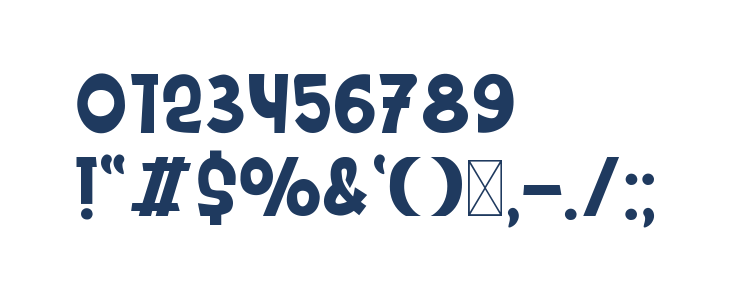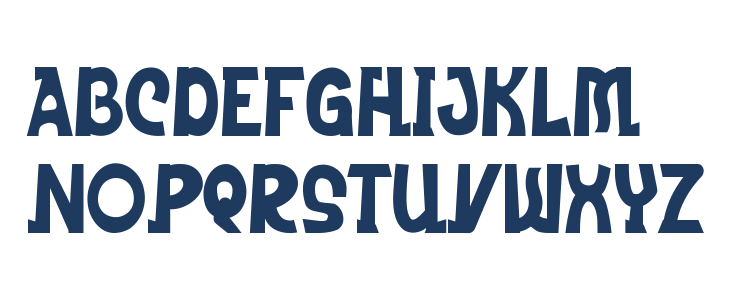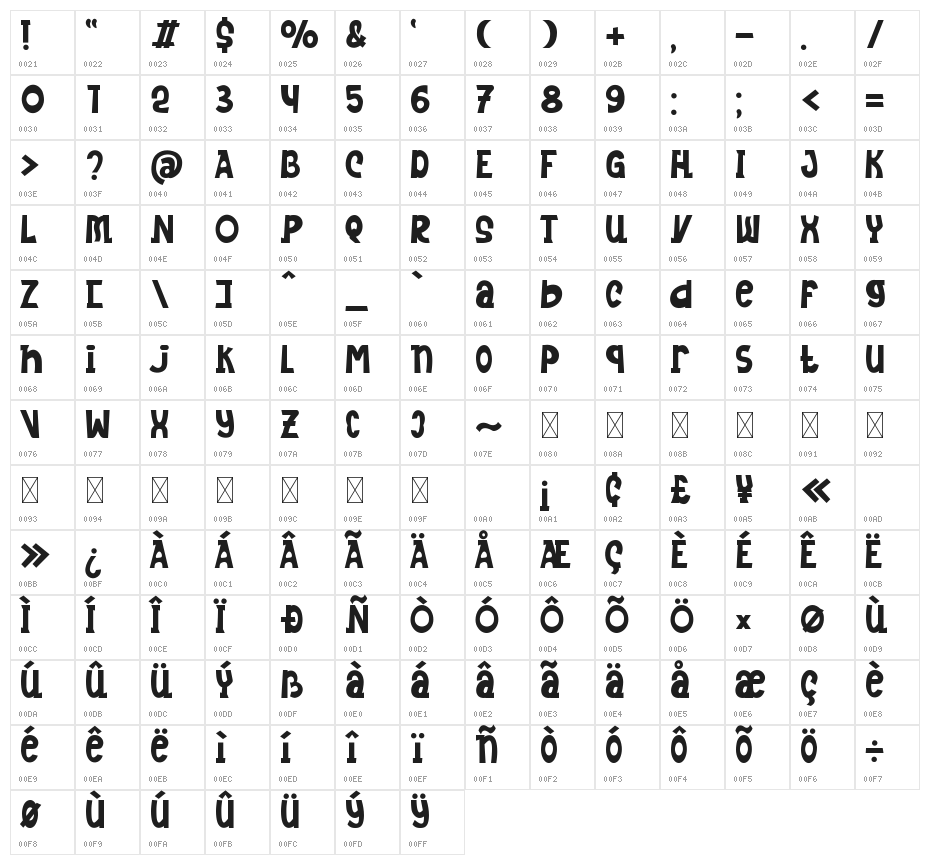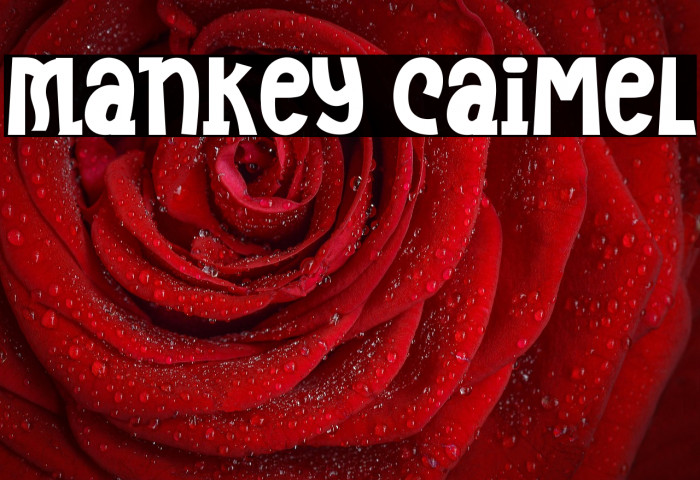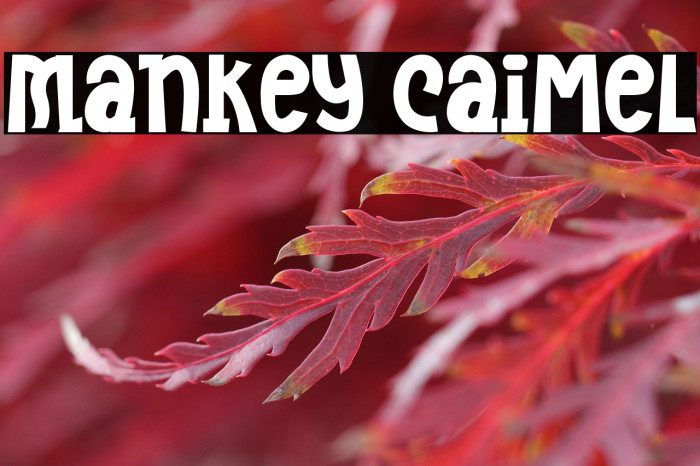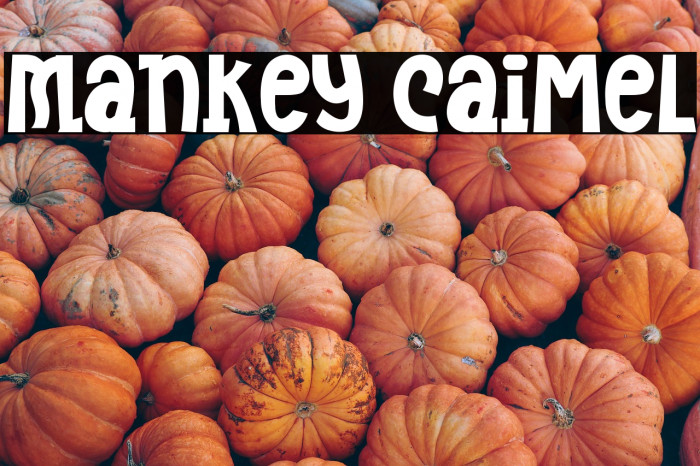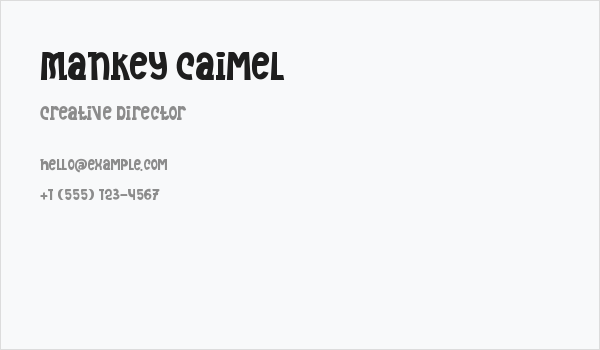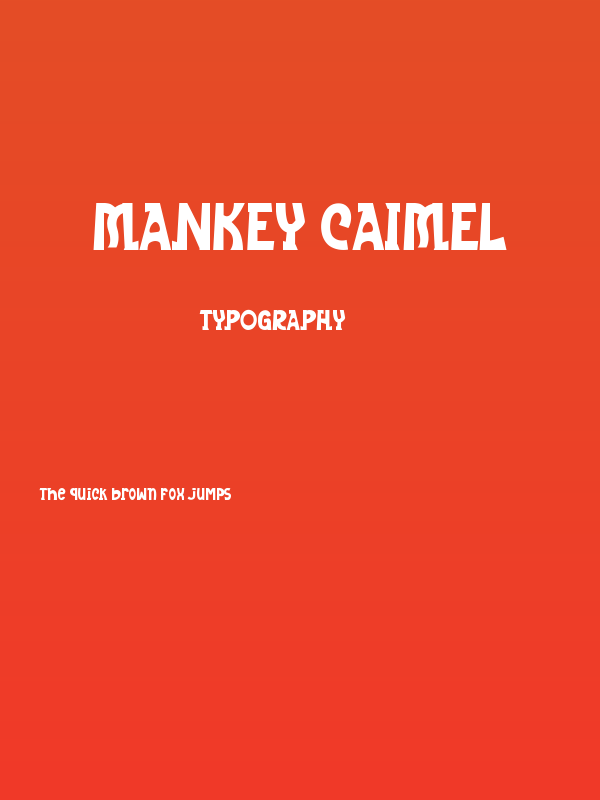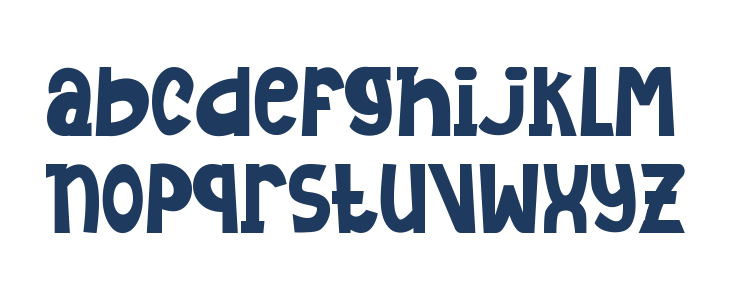
Mankey Caimel Font
Mankey Caimel Description
| Overall Style | Playful, informal, whimsical |
| Use Case | Headlines, logos, display text |
| Proposed Projects | Children's books, comic titles, posters, branding for playful or informal products, party invitations. |